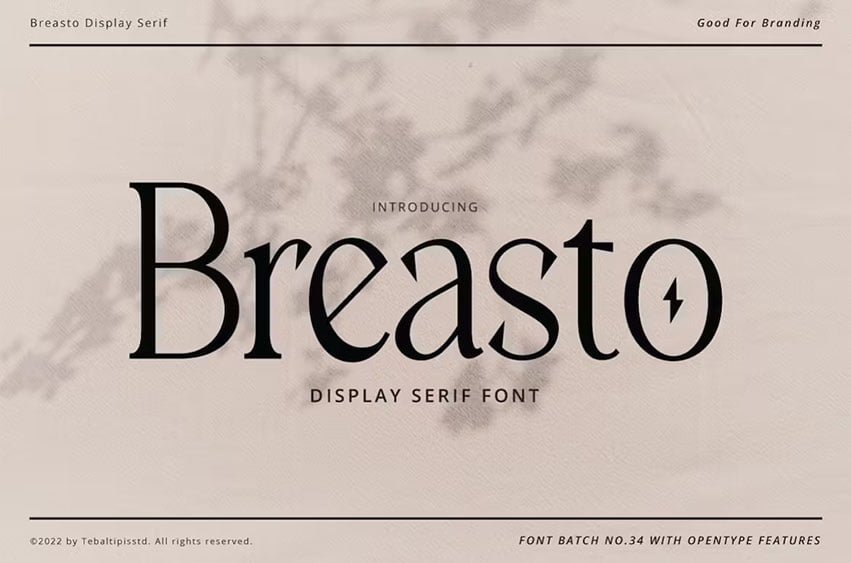
Breasto Font Display Serif is a stylish font It has both a modern and retro look. Comes with alternatives and ligatures, and helps to create stunning logos, quotes, posts, and blog posts. branding projects, magazine imagery, wedding invitations, and much more.